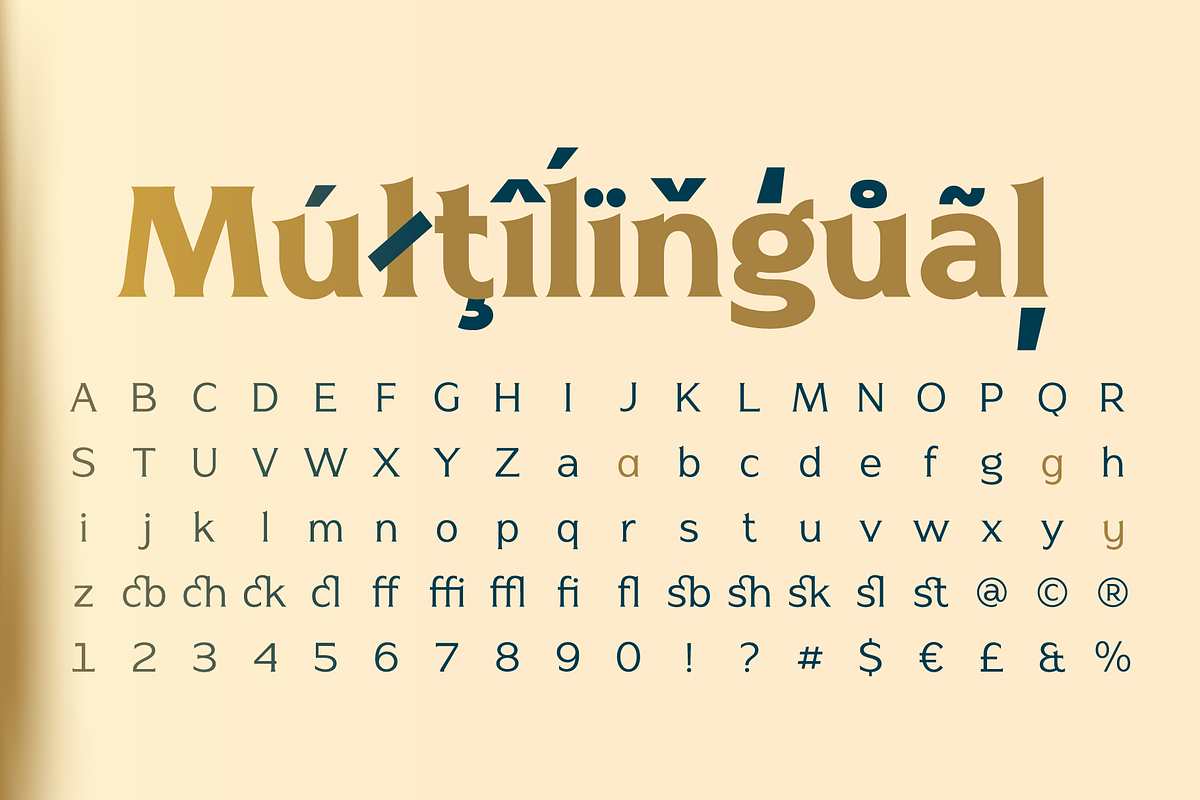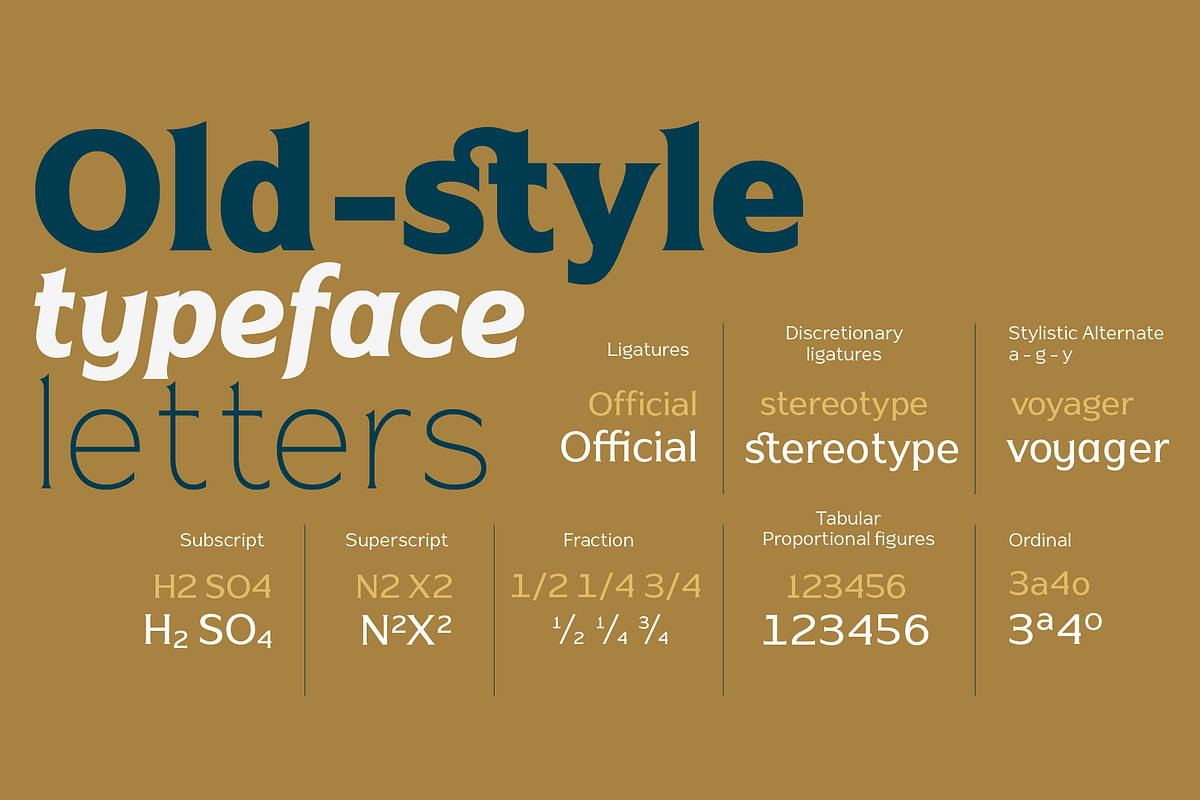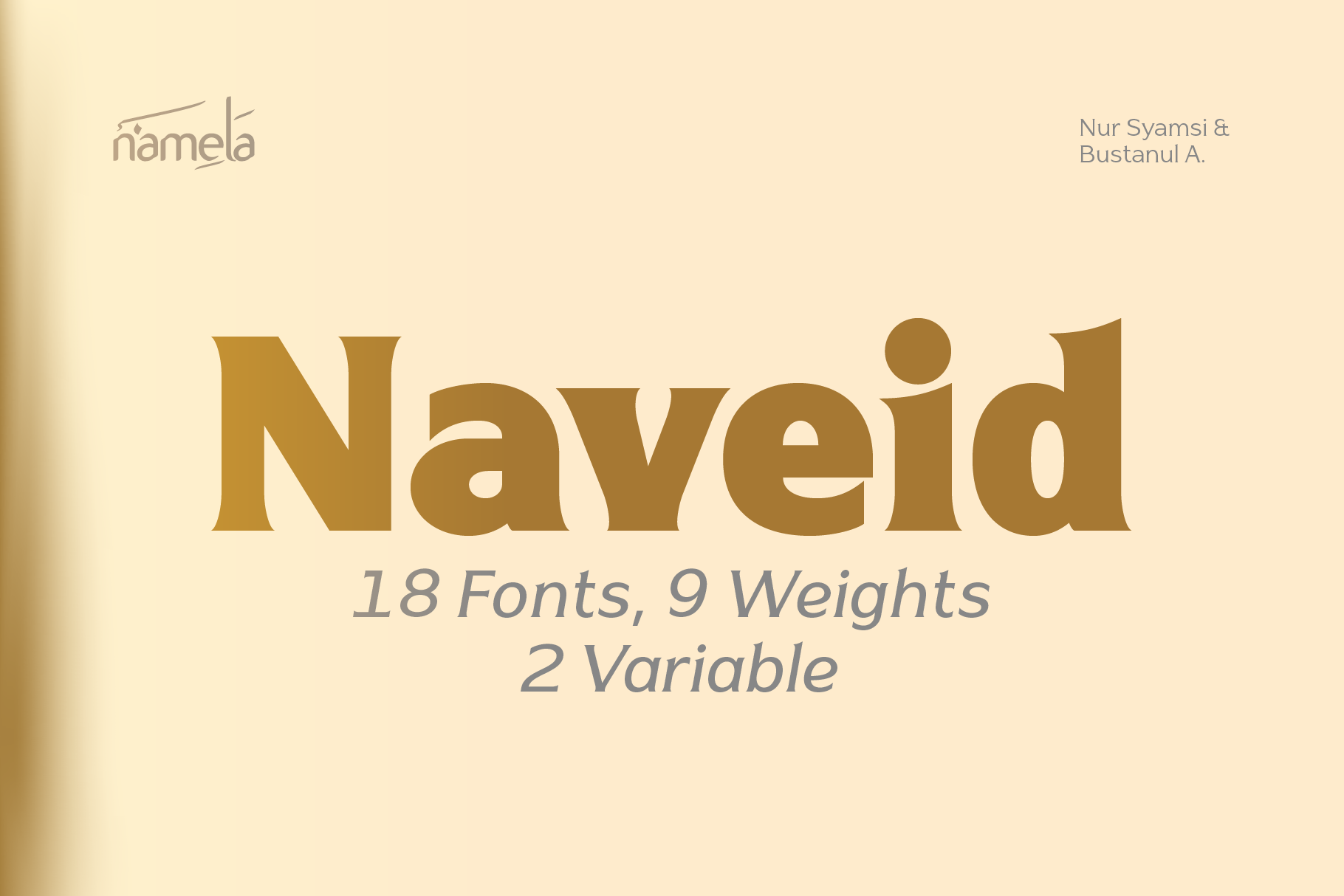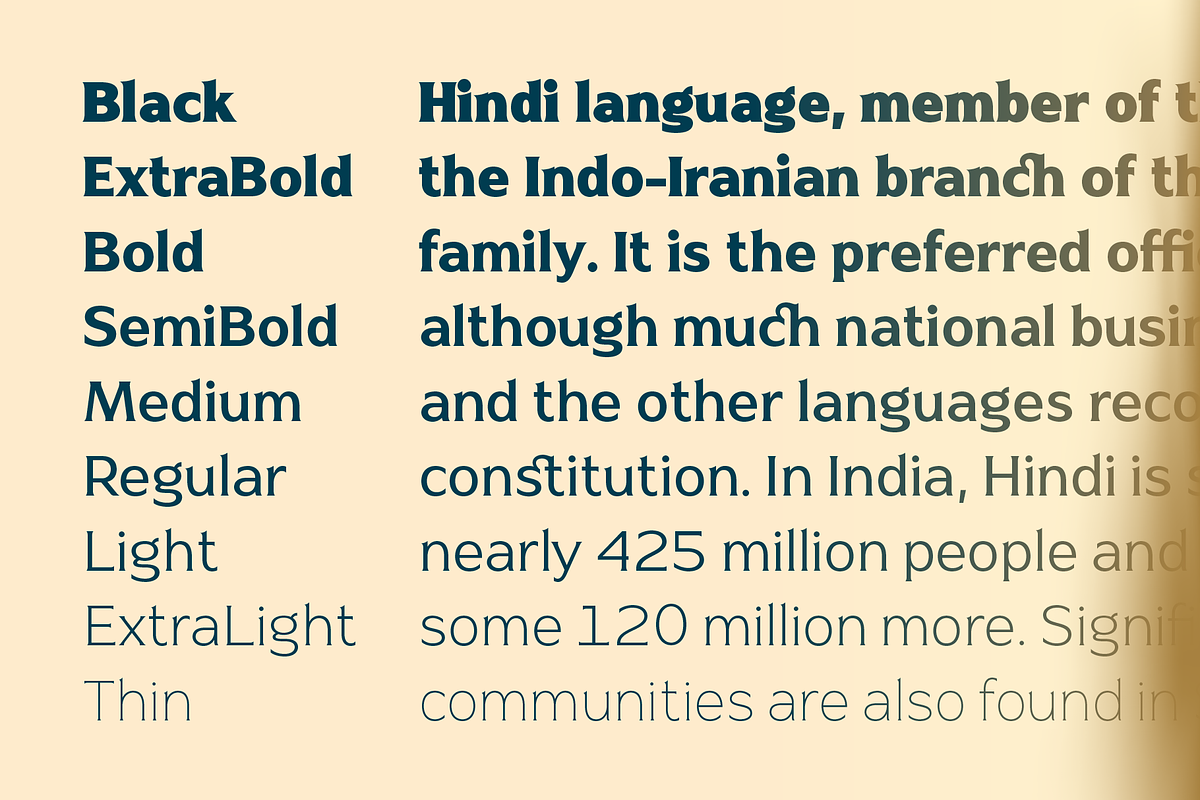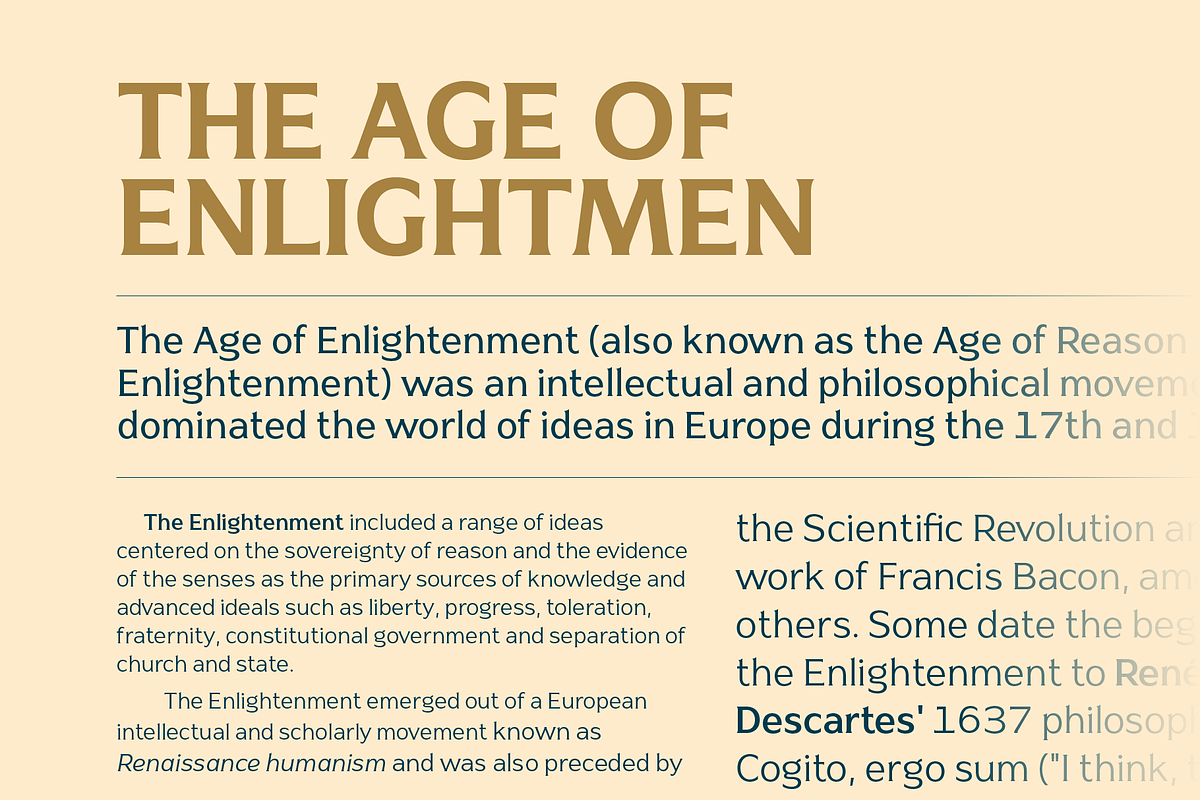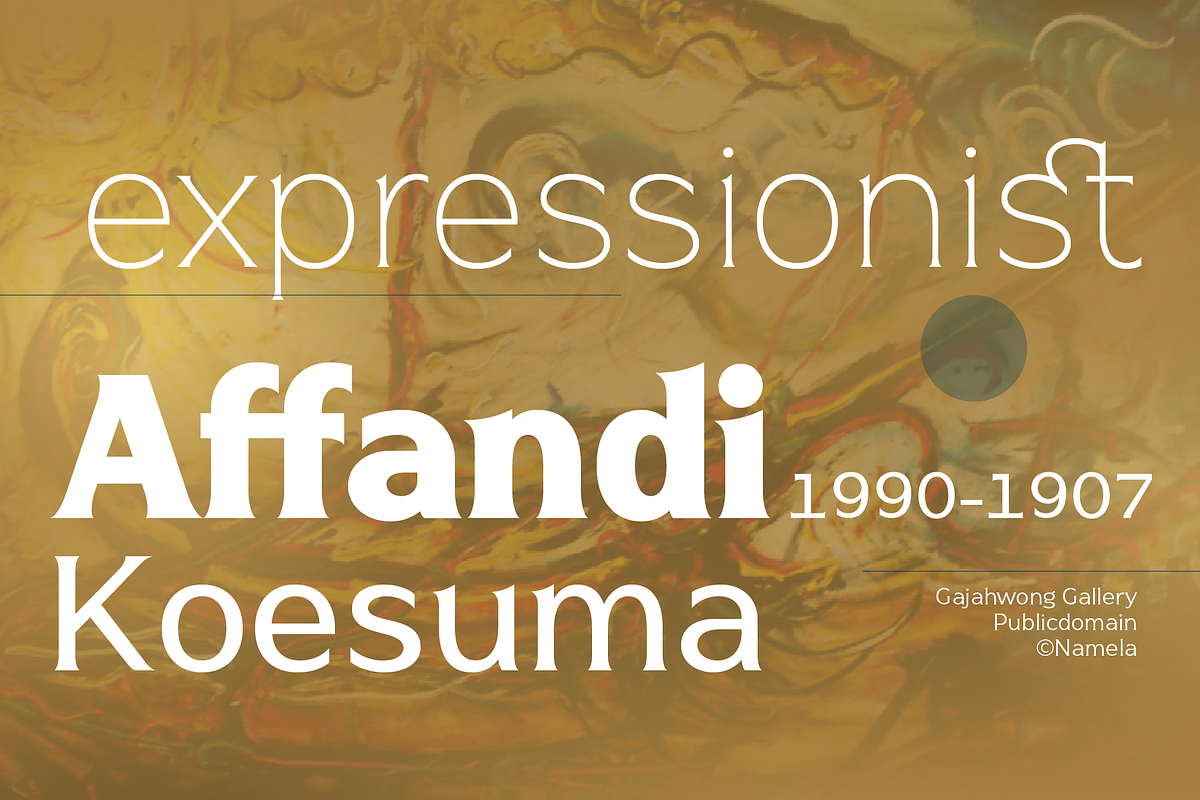
Naveid Elegant Serif Font Black
Inspired by Germany Type, Naveid Elegant Cupped Serif Font comes with Old Style Characters but different nuances. Designed with combining the cuppped serif on top and the tinny Subtle Flaring on the terminal.
Naveid Elegant Cupped Serif Font not only great for Headlines, but also great for paragraph, text and printing.